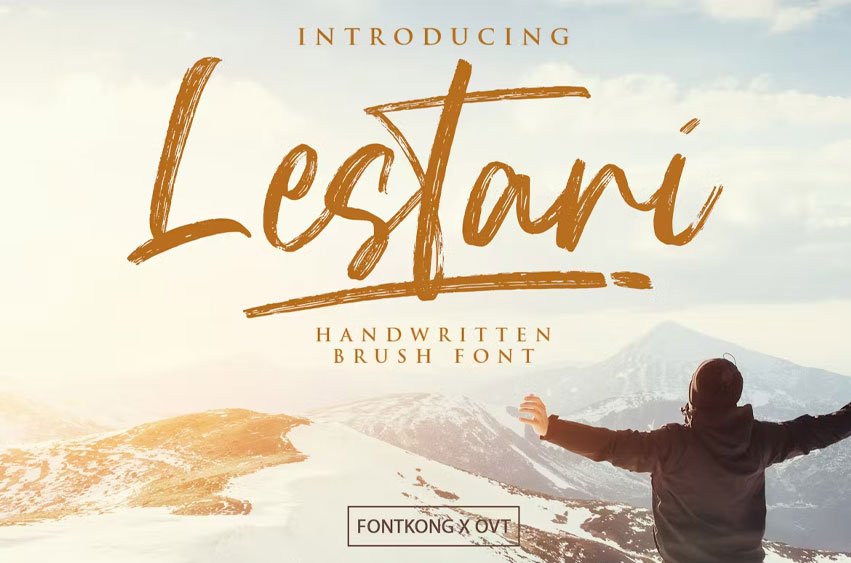
Lestari Font Handwritten Brush Font. Introducing “Lestari,” a handwritten brush font that brings organic elegance and a personal touch to your design projects. Perfect for creatives, designers, and anyone looking to add a handcrafted feel to their work, Lestari captures the fluidity and charm of authentic brush lettering.
Ideal for invitations, greeting cards, social media graphics, and branding materials, Lestari’s expressive and textured style provides a warm and inviting aesthetic. Each character is meticulously crafted to reflect the natural variations of brush strokes, ensuring your designs stand out with a personal and artistic touch.
The “Lestari” font includes a full set of uppercase and lowercase letters, numbers, and punctuation marks, offering versatility and flexibility for various design applications. Whether you’re creating heartfelt invitations or engaging social media content, Lestari enhances your projects with its organic and elegant style.
Add a touch of natural beauty to your designs with Lestari, a handwritten brush font that embodies artistic expression and handcrafted charm.